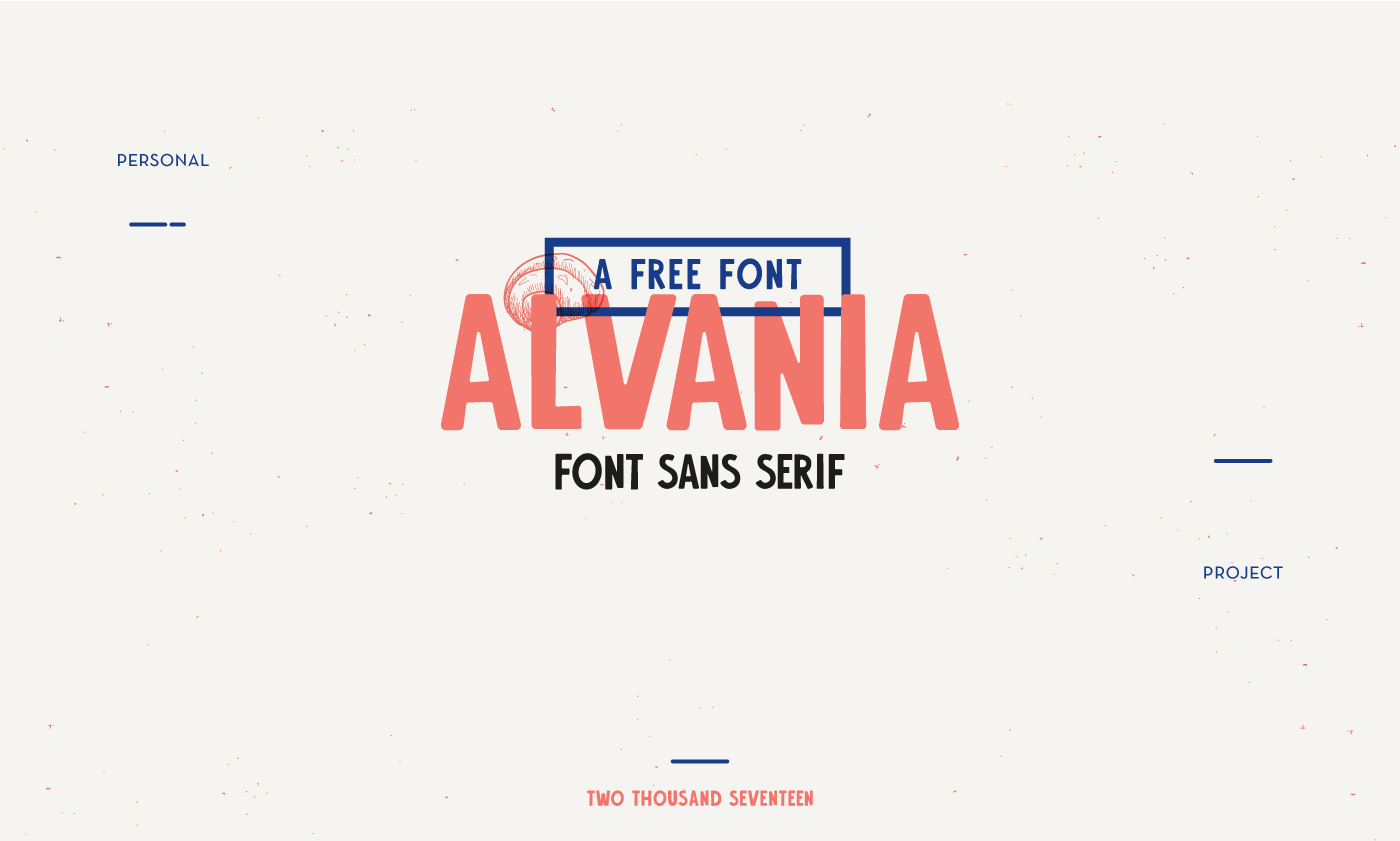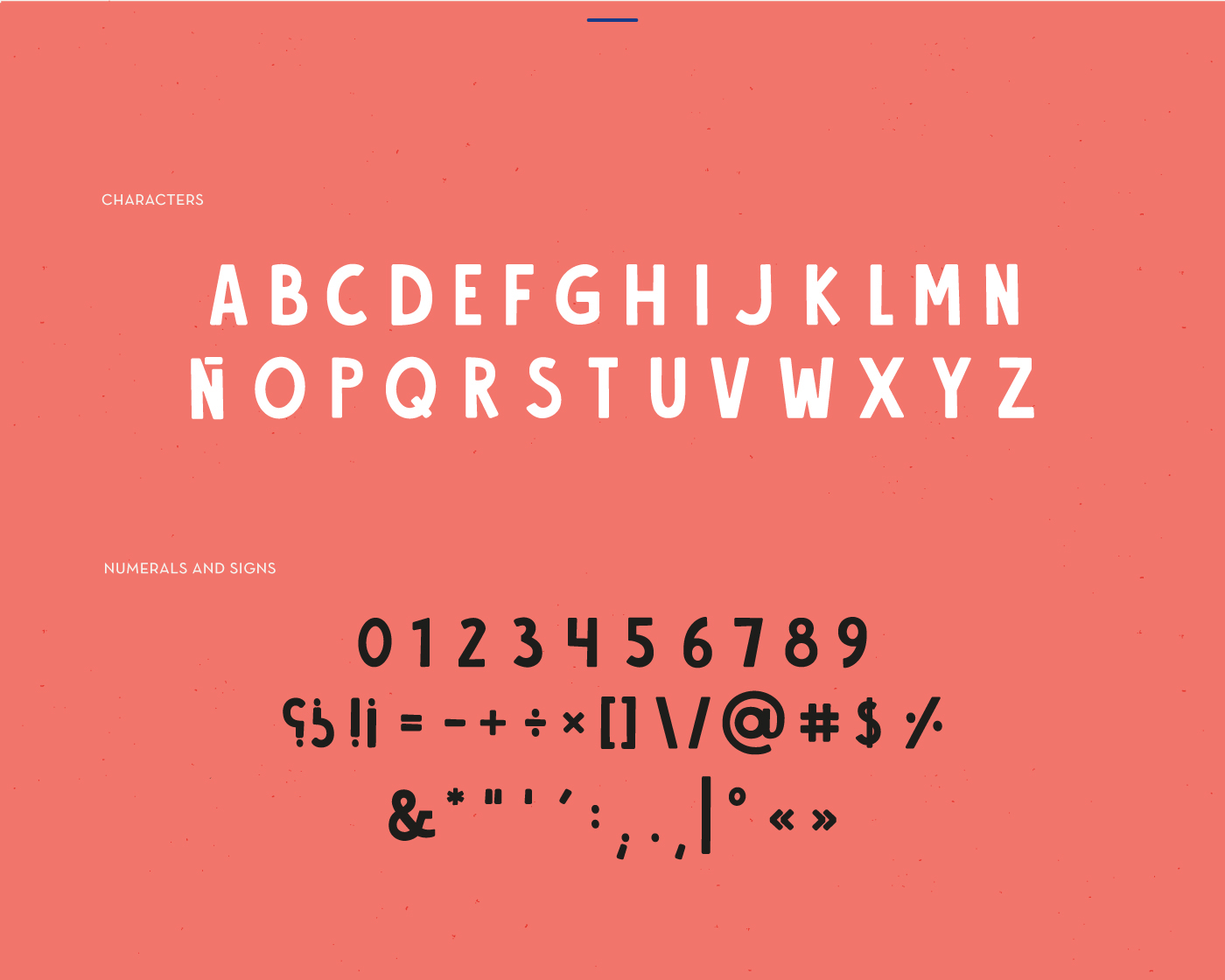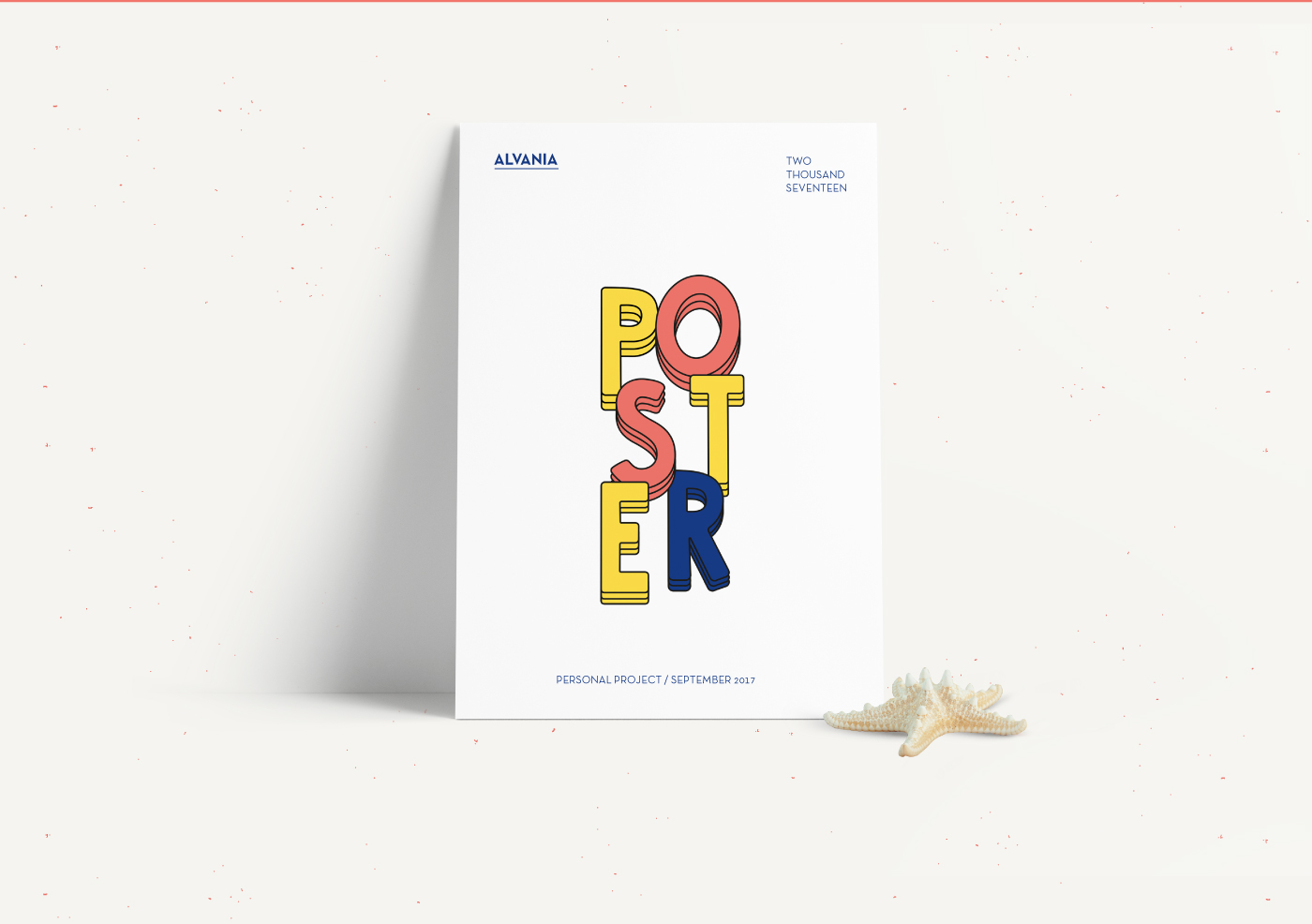
Alvania is a lovely sans serif font created by Angélica Cardona from Bogota, Columbia. The designer says that this font is the result of an experimental process full of love. Alvania is perfect for posters, branding, packages and more. Free for personal use!